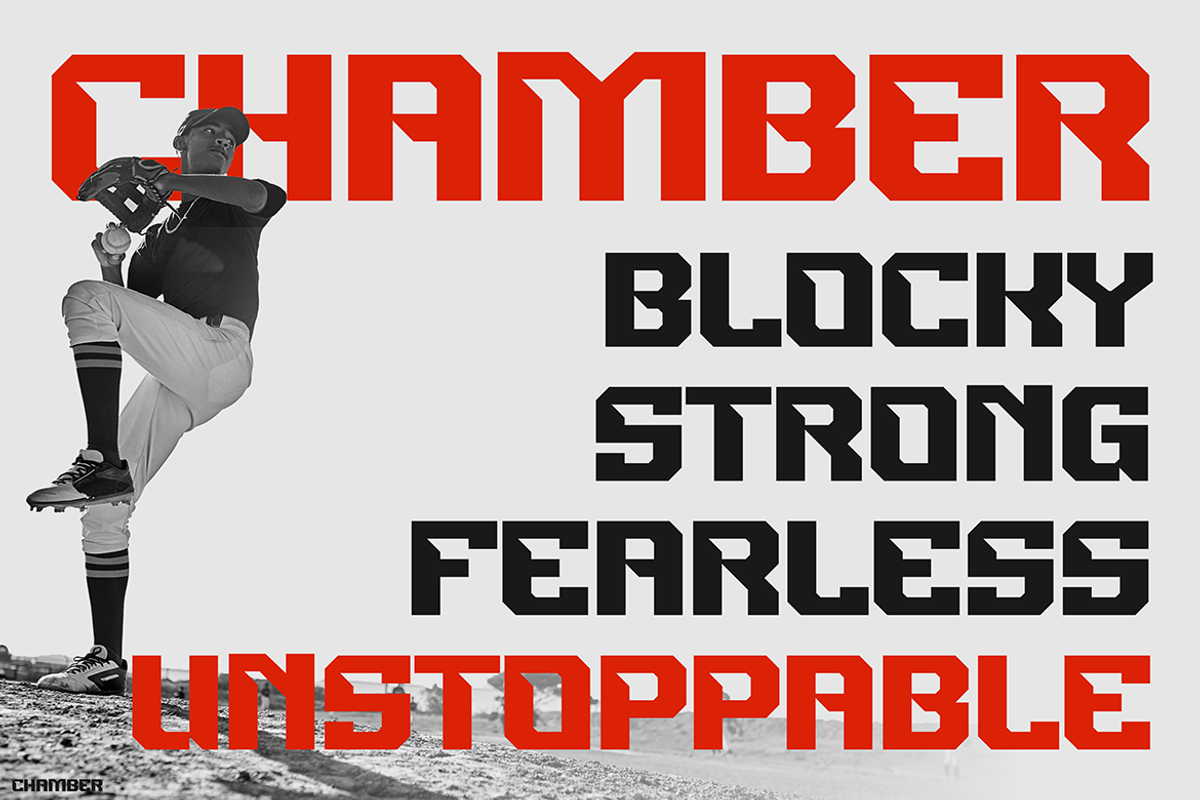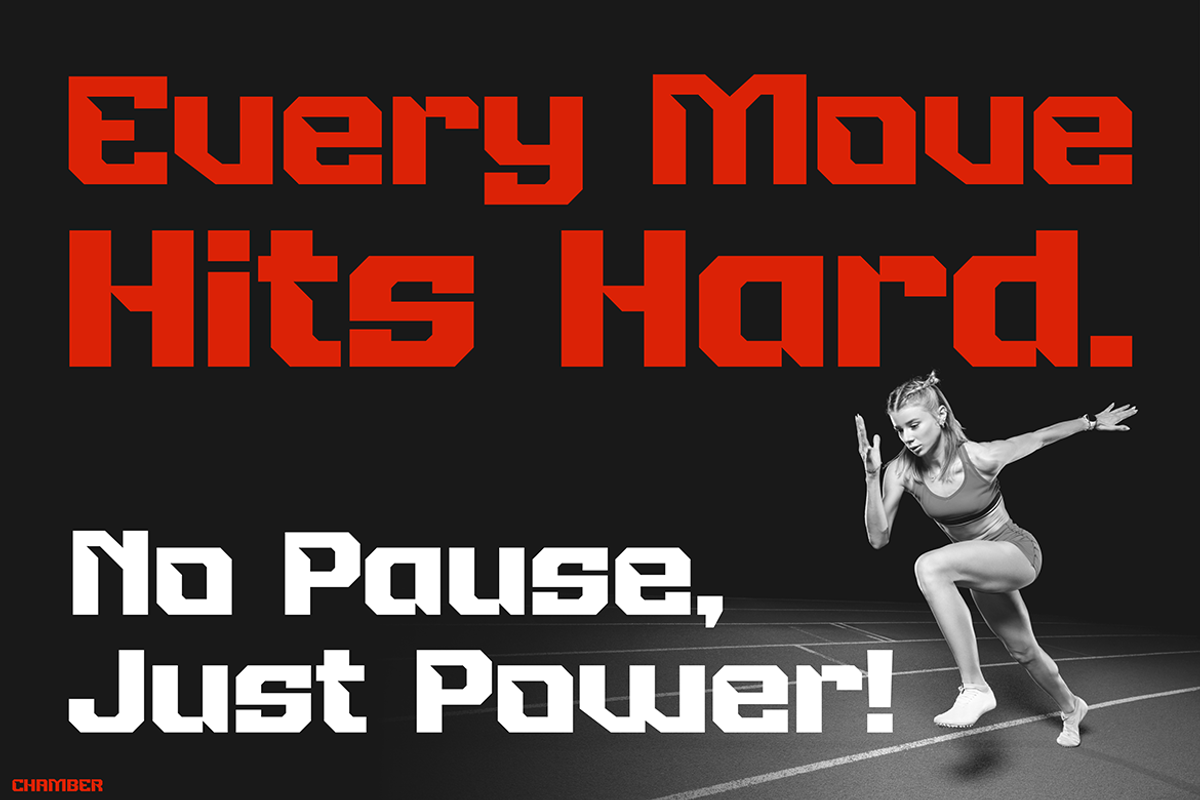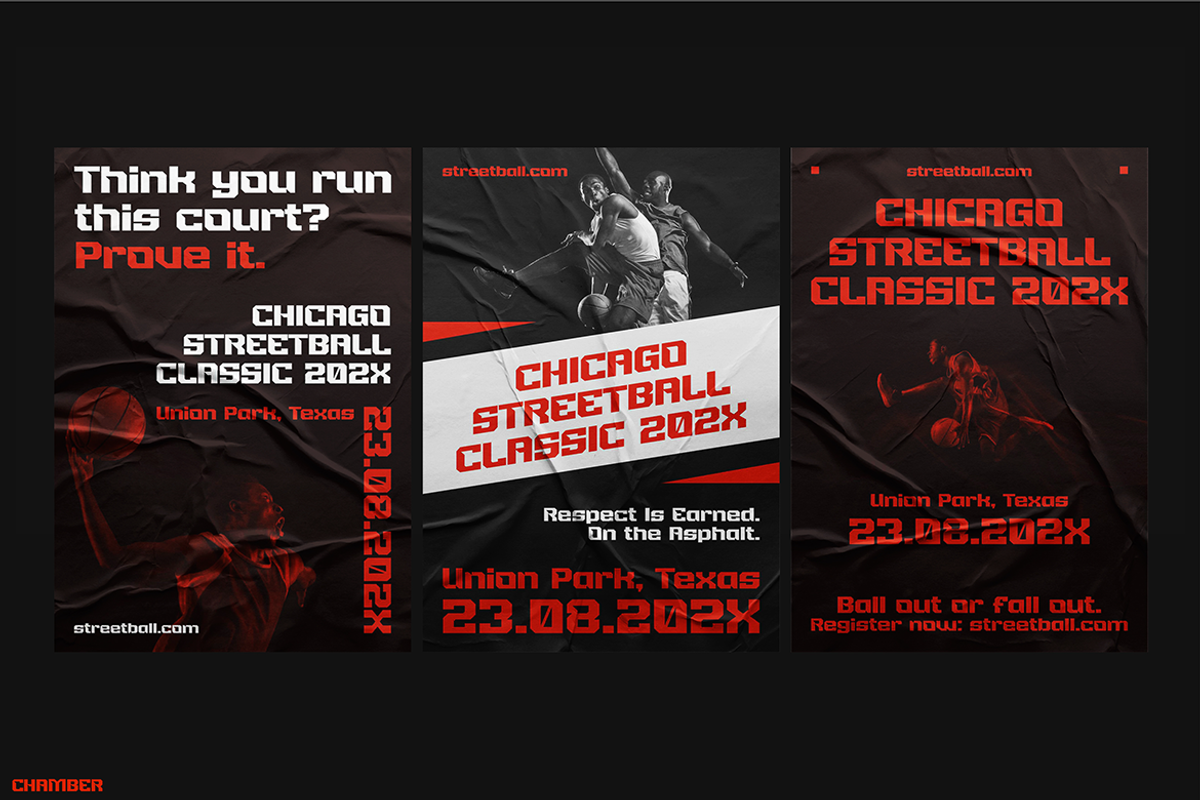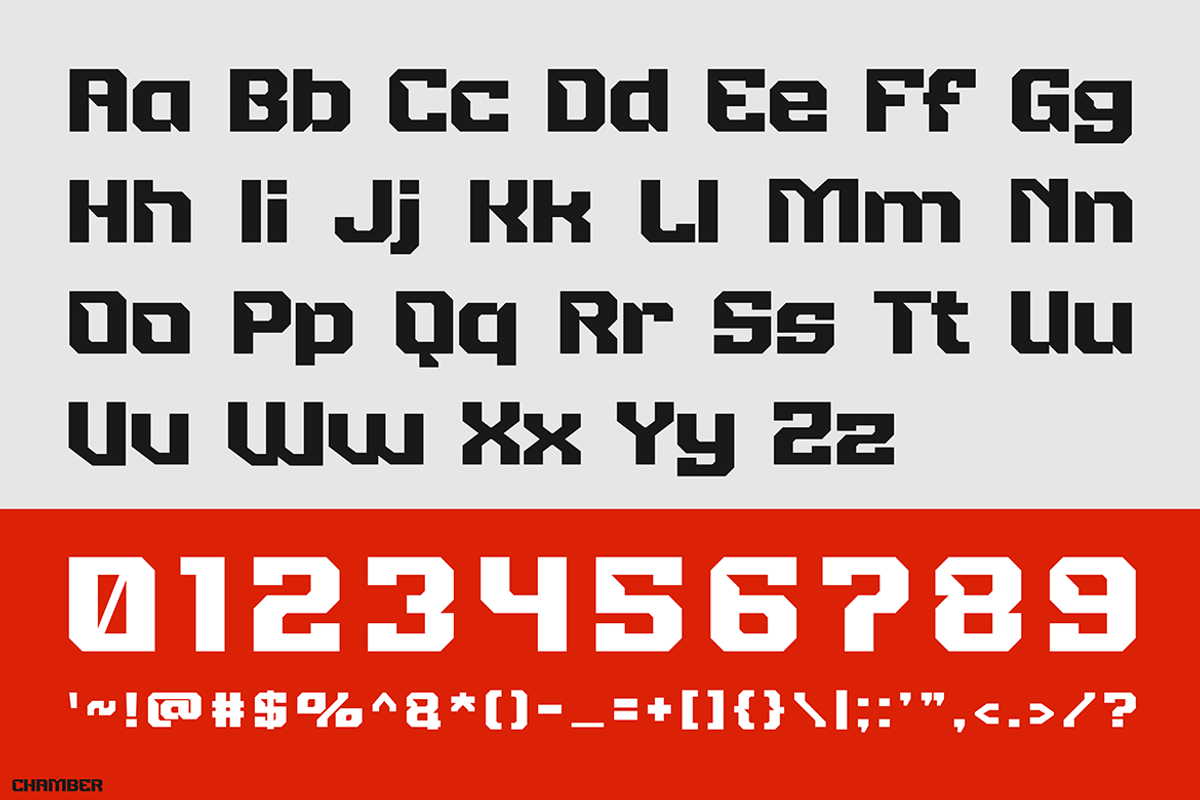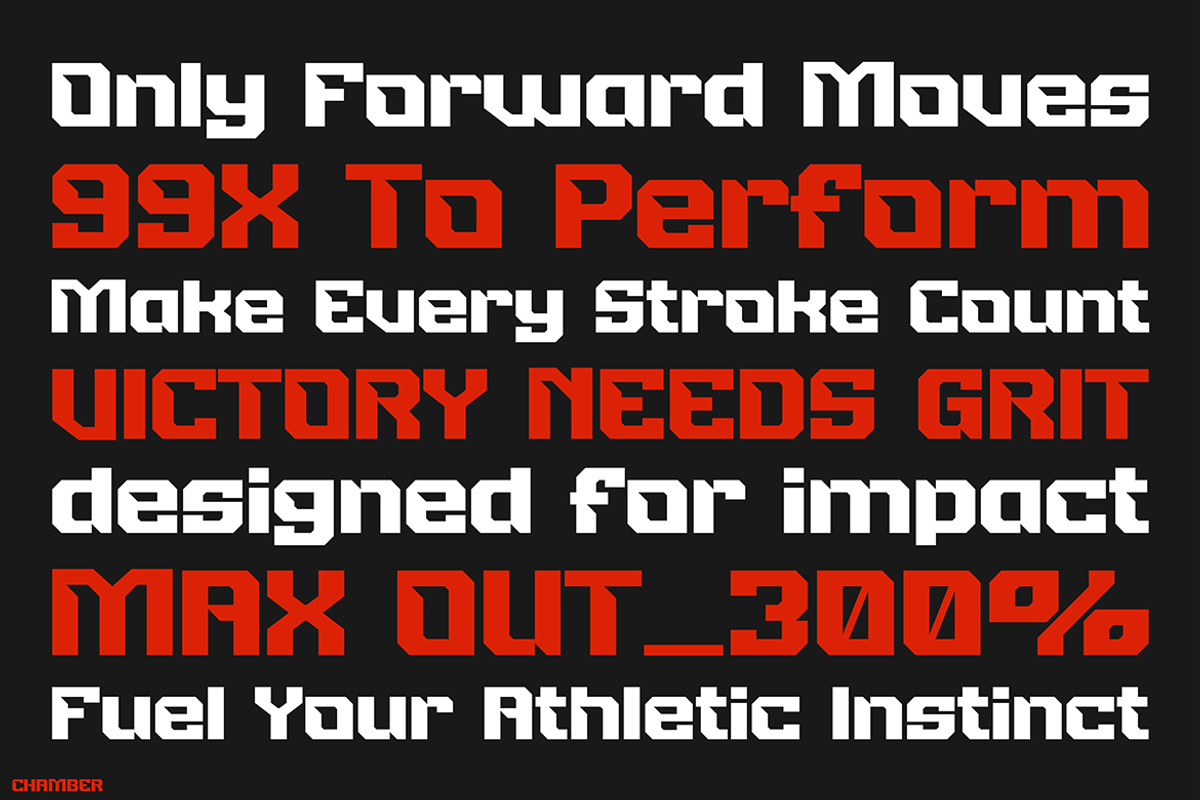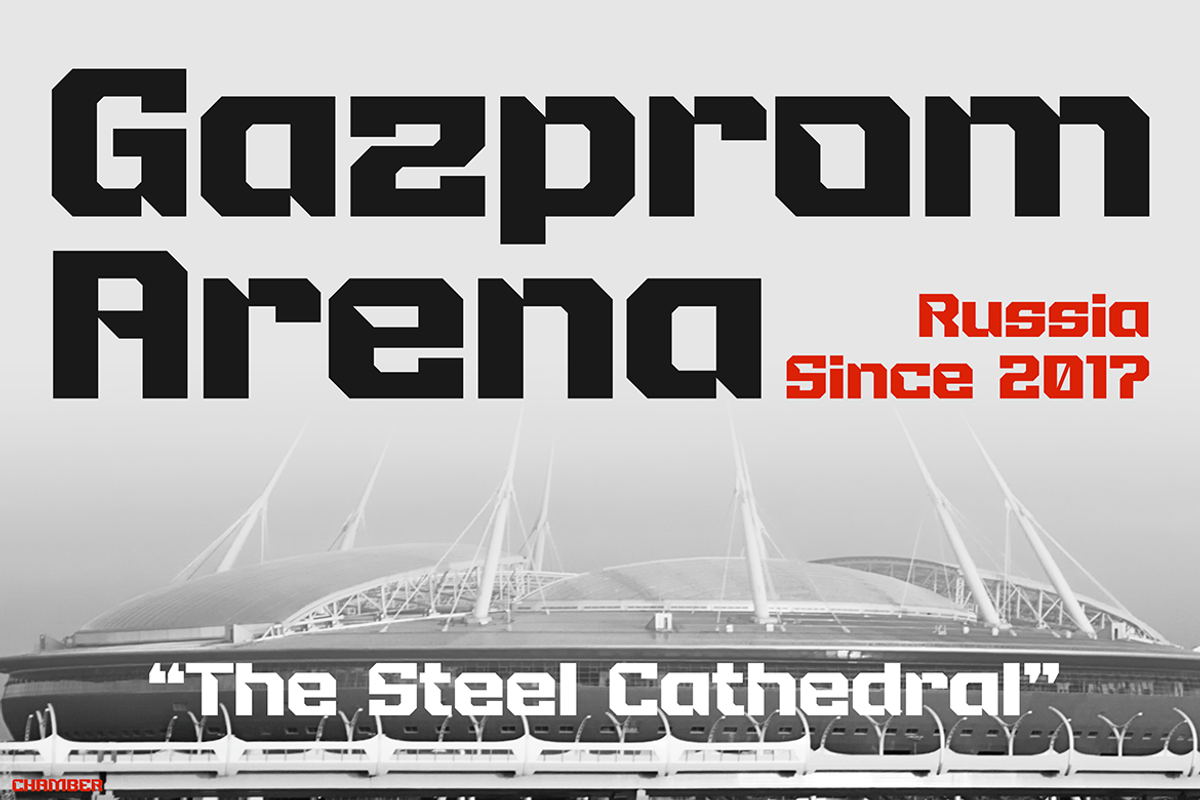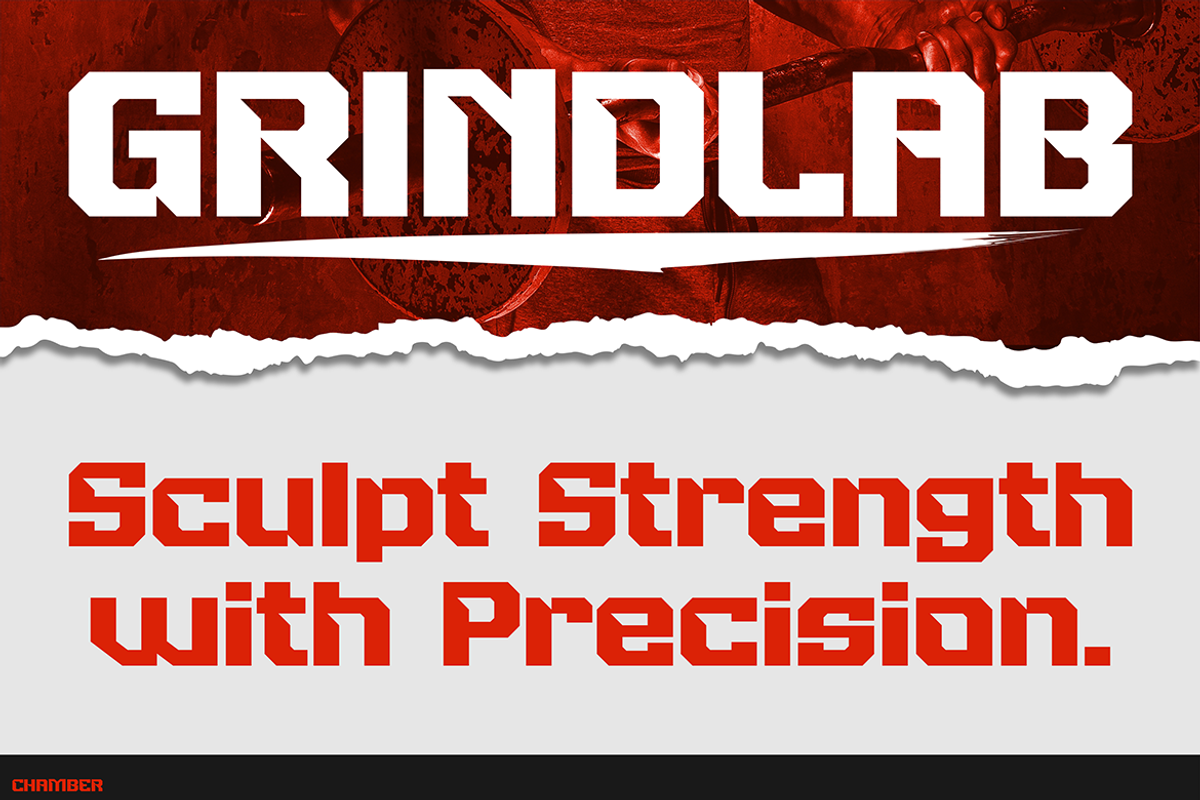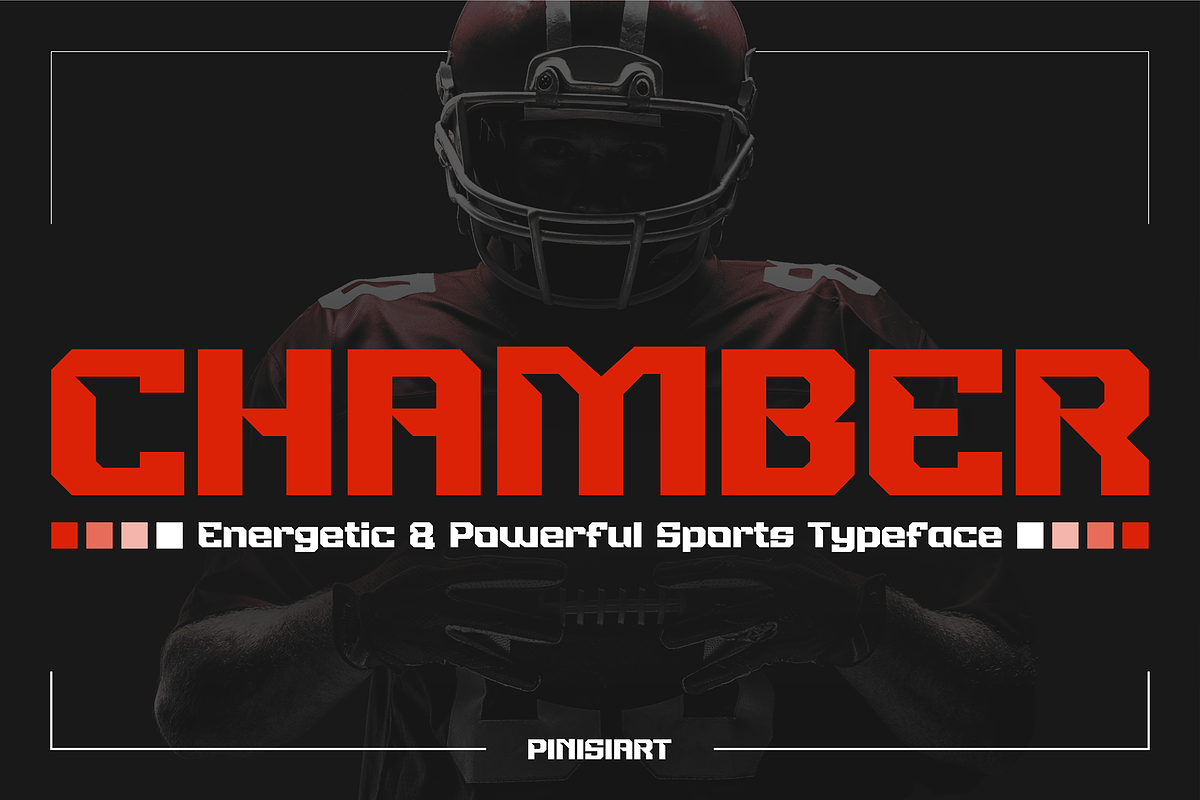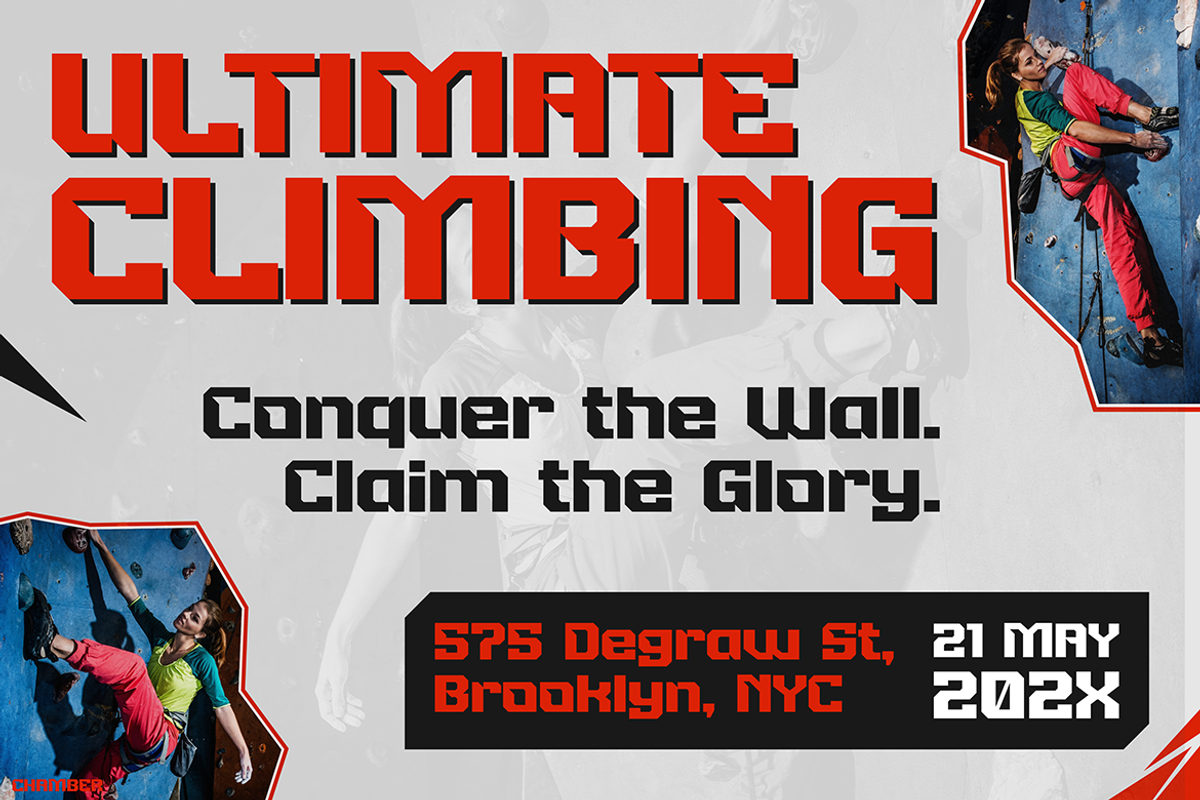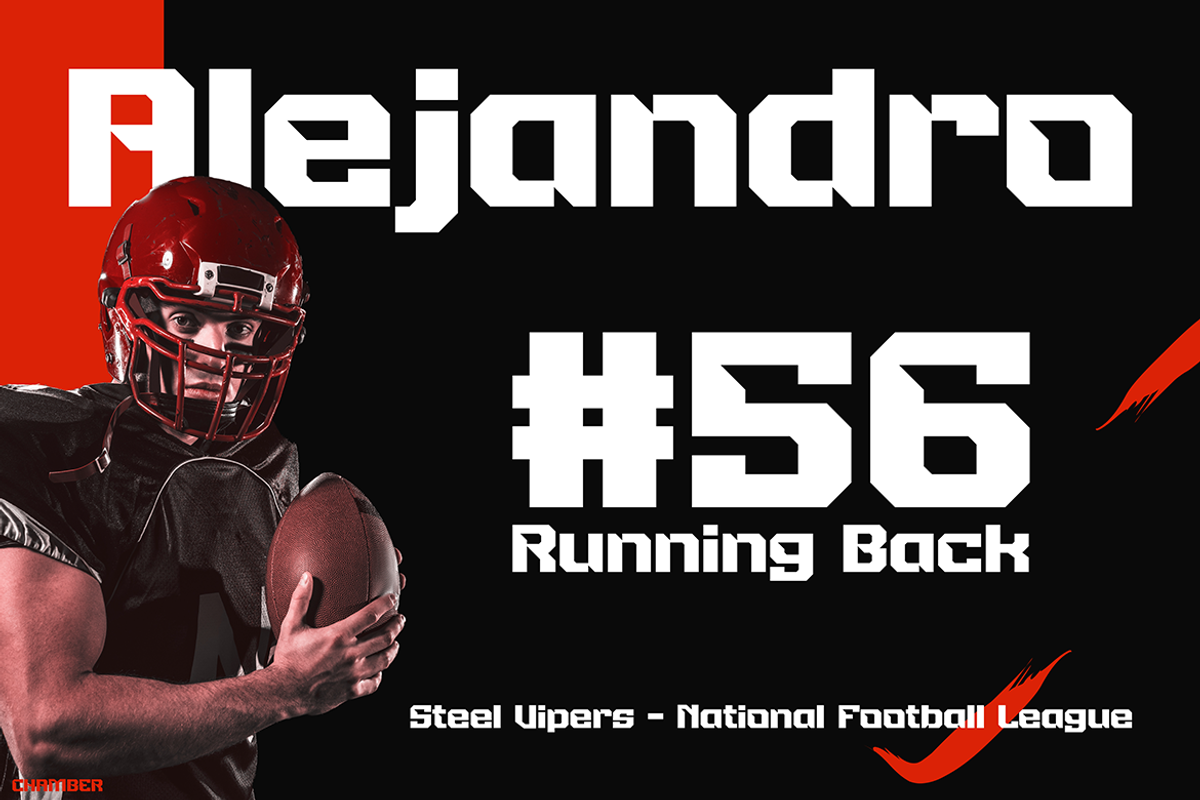
CHAMBER
Sport Fonts CHAMBER – Bold Energy in Every Letter Sport Fonts CHAMBER is a bold, powerhouse typeface made for the heart of competition. Right from the first glance, it grabs attention with sharp angles, wide proportions, and heavy strokes — ideal for making a bold statement on posters, jerseys, or gym branding. Not just a font, CHAMBER is a visual tool that speaks power, energy, and momentum.
What sets CHAMBER apart is its perfect balance of sporty modernism and sharp readability. Thanks to its square structure and consistent weight, it delivers a clean yet aggressive look. As a result, it performs well in both print and digital formats. Whether you’re creating signage, ads, or merchandise, CHAMBER helps your message stand out clearly.
Additionally, every letter in CHAMBER feels designed for movement. The tight spacing and high-impact construction give it a powerful rhythm. Therefore, it works exceptionally well in fast-paced sports settings, energetic branding, or promotional content that demands attention.